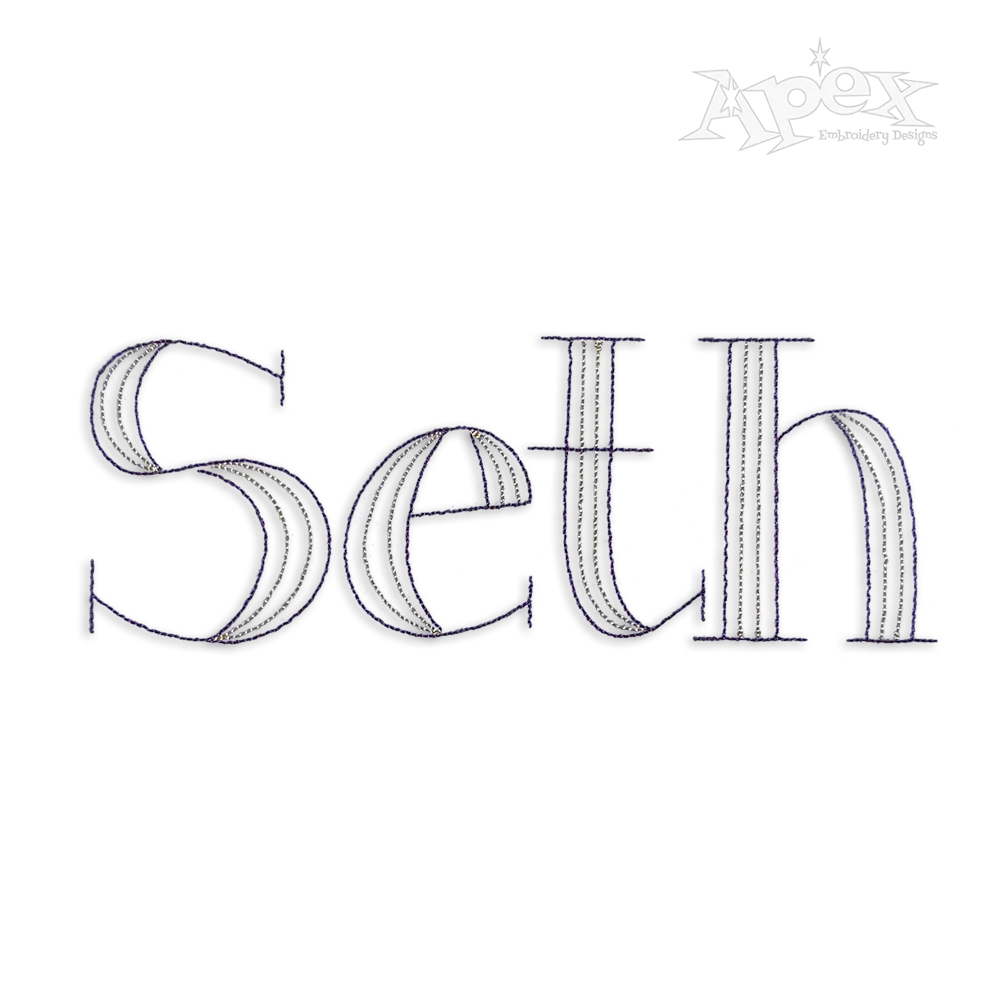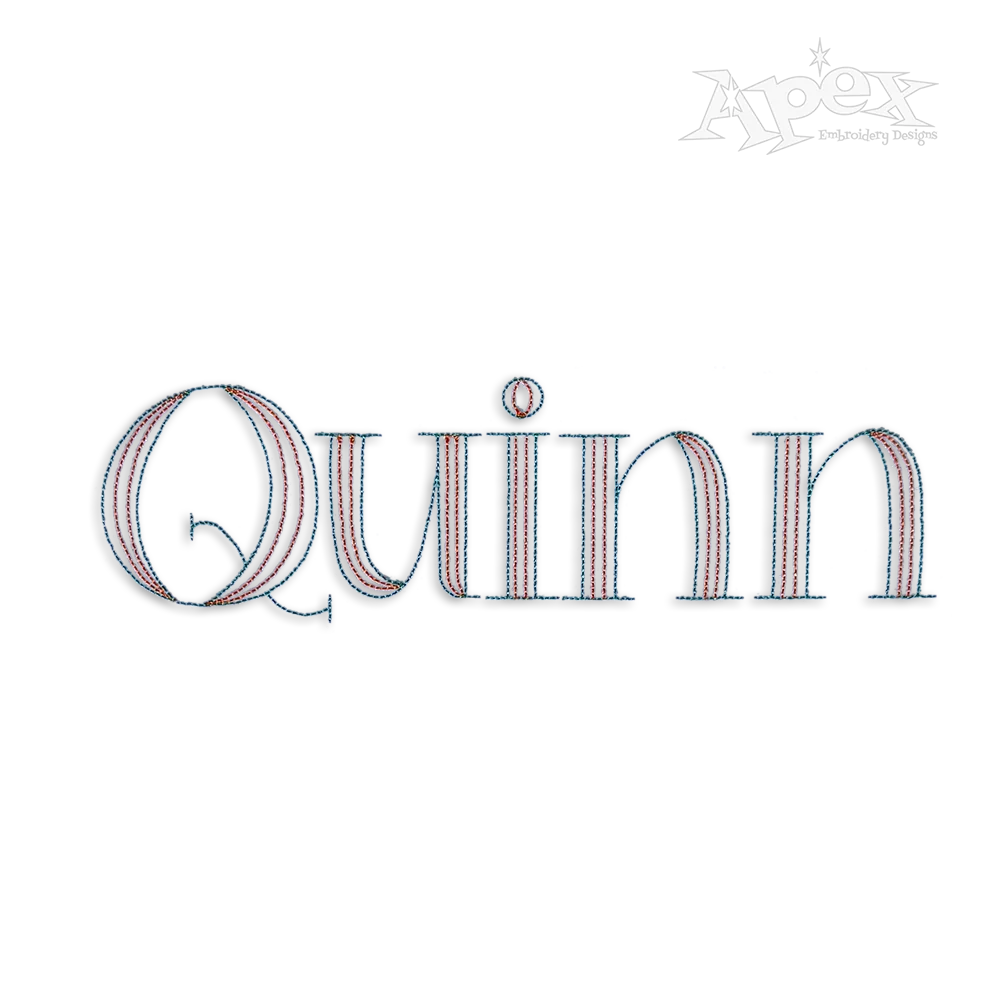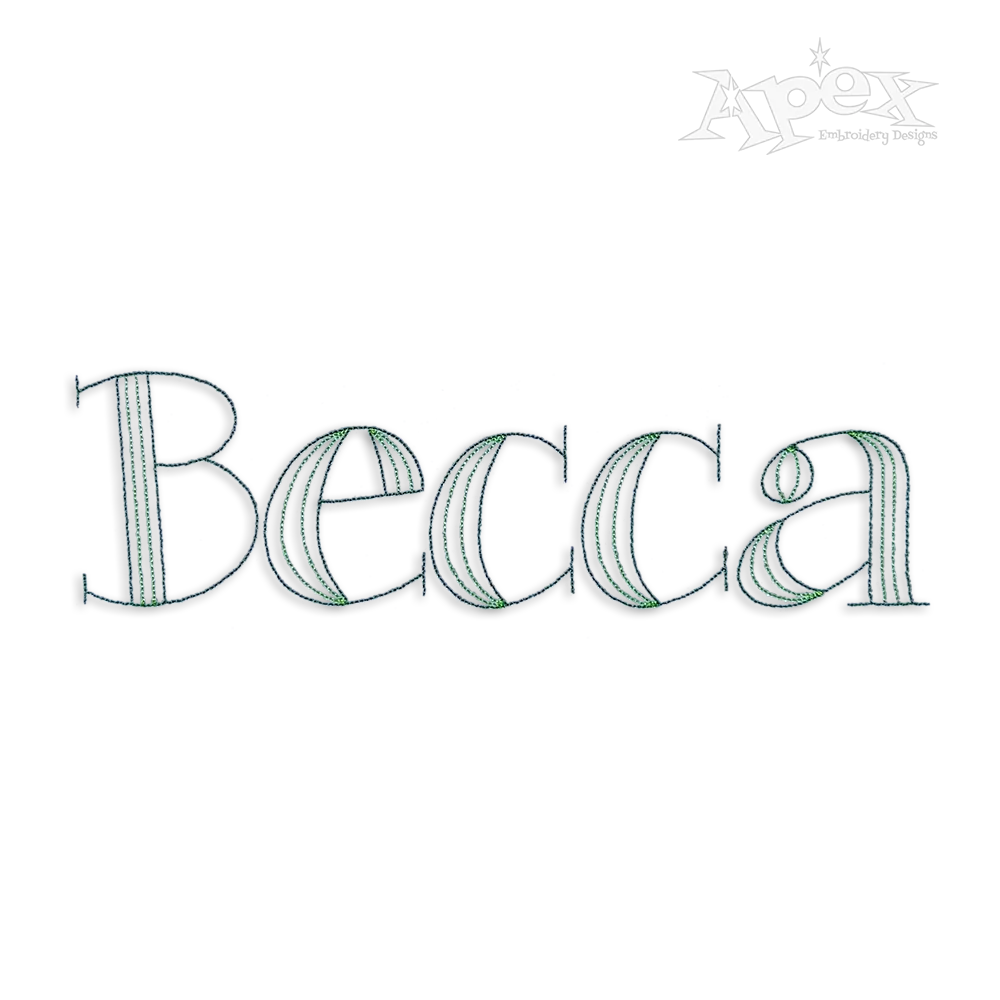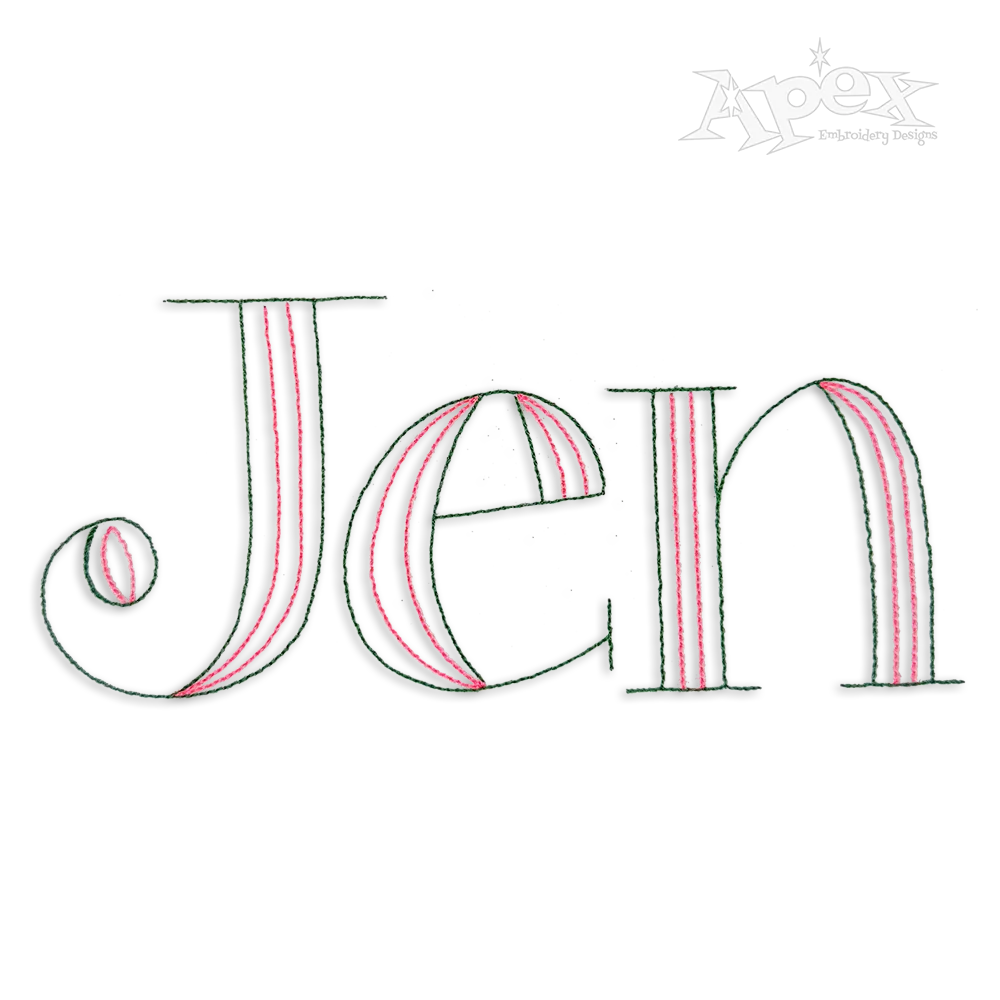
Baby Sketch Embroidery Font
Inspired by the loose, whimsical pencil strokes of vintage storybook illustrations, the Baby Sketch Embroidery Font captures childhood nostalgia with an effortless, featherlight touch. We digitized this alphabet specifically to avoid the rigid, heavy armor of dense fill stitches, favoring an airy, sketch-style running fill accented by crisp, double-pass bean stitch contours. The harmonious two-color sequence breathes dynamic dimension into every character, producing custom monogramming that feels as gentle, breezy, and joyful as a cherished nursery lullaby.
Digitized for swift, beautiful execution across a range of gift sizes, this two-color sketch alphabet includes three versatile heights scaled precisely to maintain balanced thread tension and lightweight softness:
- 2.0 Inch Height: Ideal for dainty infant collars, newborn layette caps, and petite cuff accents.
- 3.0 Inch Height: The quintessential scale for baby rompers, heirloom bibs, and children's knit sweaters.
- 4.0 Inch Height: A bold, charming statement size designed for nursery throw pillows, quilted playmats, and receiving blankets.
Project Ideas for Baby Sketch Embroidery Font
Because the breezy sketch fill and bean-stitched outlines keep thread density exceptionally low, this font shines on garments and textiles that require a soft, comfortable drape against sensitive skin:
- Heirloom Nursery Linens: Stitch playful, oversized single initials onto scalloped crib sheets, lightweight duvet covers, or boudoir accent pillows.
- Personalized Baby Layette: Create bespoke coming-home outfits, cotton onesies, and waffle-knit footies that remain completely flexible and cozy.
- Bespoke Gifting & Keepsakes: Accent linen diaper covers, monogrammed burp cloths, and plush hooded bath towels for baby showers and christenings.
- Children?s Canvas Accessories: Customize canvas diaper caddies, daycare backpacks, and holiday stockings with clean, modern texture.
The organic, free-flowing nature of this sketch font makes it exceptionally forgiving and adaptable across diverse placement zones:
- Center Chest: Position full names or sweet phrases across the upper chest of infant bodysuits and toddler sweatshirts for an immediate artisanal feel.
- Corner Diagonal: Angle a 3-inch or 4-inch single monogram across the finished corner of a swaddle wrap or heirloom baby quilt.
- Pocket & Cuff: Anchor miniature names or two-letter monograms just above patch pockets or on turned-up hem cuffs of tiny overalls.
- Banner & Pennant Borders: Align vertical or horizontal lettering across nursery wall hangings and fabric growth charts.
Baby Sketch Embroidery Font Craft & Letterform Details
From the first stroke of the digital stylus, our goal with the Baby Sketch Embroidery Font was to translate the spontaneity of hand-drawn art into pristine, high-performing embroidery. Every letterform features gentle, rounded corners rather than aggressive, sharp points, mirroring the playful innocence of early childhood sketches. The open running-stitch infill is meticulously mapped with intentional travel paths to prevent excessive jumping, keeping the back of the embroidery exceptionally clean and neat.
We paired this relaxed under-fill with an outline layer rendered in a vintage-style bean stitch?a deliberate triple-pass running stitch that creates the rich, raised cadence of hand-spun crewelwork. By assigning the sketch fill and bean outline to two separate color stops, you gain infinite creative freedom: create subtle tone-on-tone dimension with shades of soft ecru and linen, or produce high-contrast, playful pairings of pastels and bright jewel tones. The result is a delightfully rapid stitch-out that never puckers delicate knits and yields a touchably soft, boutique-quality finish every single time.